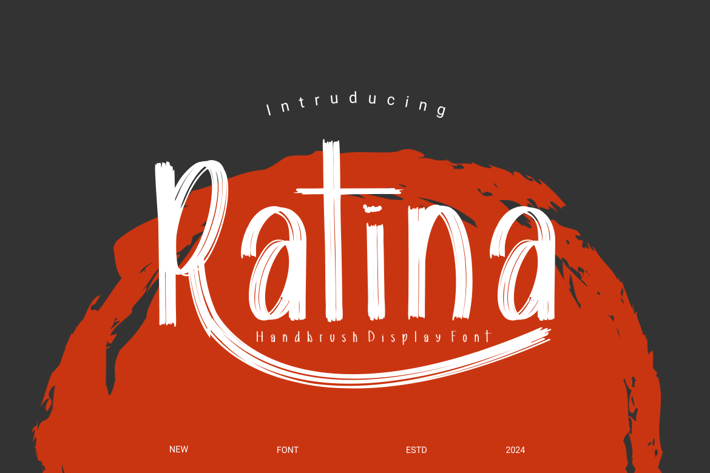
Ratina - Hand Brush Display Font
Proudly present our new product Ratina - Hand Brush Display Font
is a modern and authentic font. Perfect for professional needs and product branding, this font is suitable for any branding project such as quotes, logos, blog headers, posters, ribbons, letters, invitations, stationery, etc... Designed to be versatile and flexible that can be used on a variety of projects and media. extraordinary in a variety of contexts.